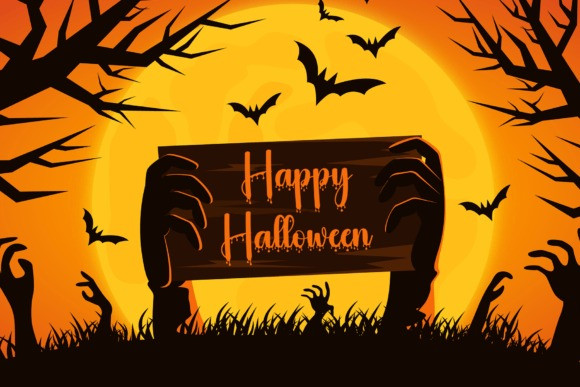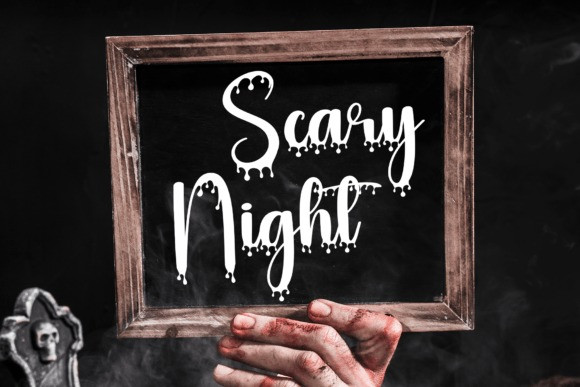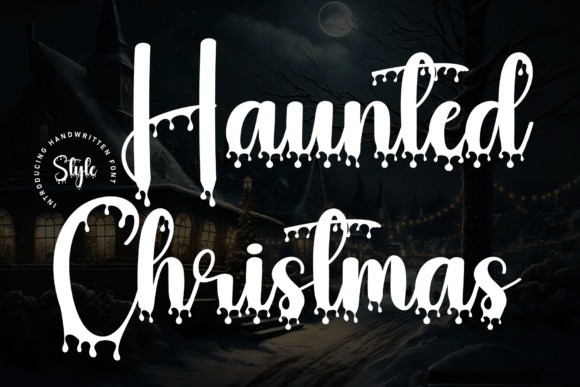
Haunted Christmas Font
Haunted Christmas Font, a handwritten font with dripping letters that adds a spooky and festive touch to your holiday designs. The fluid strokes and hauntingly unique characters bring an eerie charm, making it perfect for creating mysterious and memorable Christmas-themed graphics. Embrace the spirit of the season with a font that blends the warmth of handcrafted letters with a hint of haunting allure. Ideal for invitations, greeting cards, and any project where you want to infuse a touch of ghostly cheer.